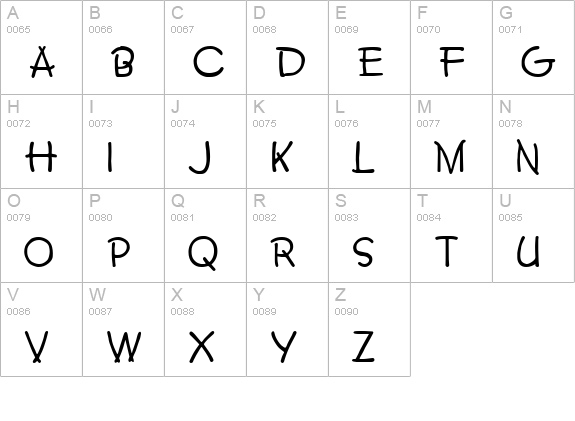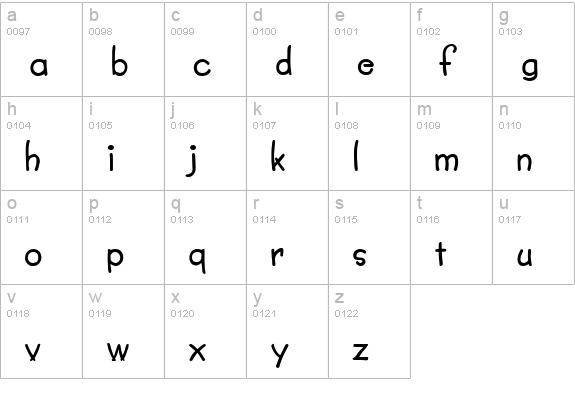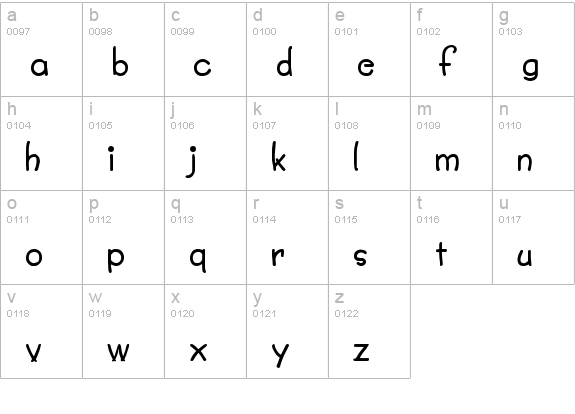
FanciHand Regular Font Details
FanciHand Regular is the standard, neutral variant in the FanciHand typeface family \xE2\x80\x94 well suited to general body text, paragraphs, and standard typographic work.
FanciHand Regular font exudes elegance and sophistication with its intricate yet playful design. This versatile typeface boasts a perfect balance between classic charm and modern flair, making it ideal for a wide range of creative projects. The fluid strokes and fine details of FanciHand Regular add a touch of whimsy and personality to any text, making it a standout choice for invitations, branding, packaging, and more. What's even better is that FanciHand Regular is available for free download at FontsMarket.com. This means you can easily access this stunning font and elevate your designs without breaking the bank. Don't miss out on the opportunity to add FanciHand Regular to your font collection and bring a touch of sophistication to your projects. Download it now and let your creativity shine!